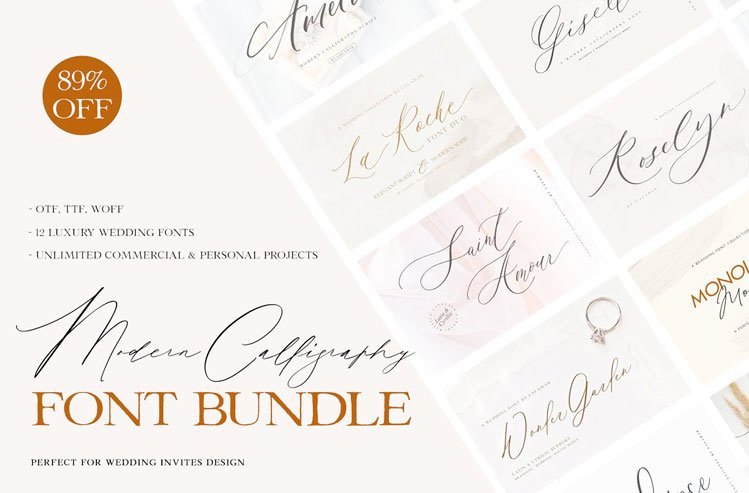
Modern Calligraphy Font
The Modern Calligraphy Font - It's perfect for wedding invitations, save the date cards, fine art papery, or personal gift cards...
Modern Calligraphy Font Bundle
Are you ready for a new bundle of absolutely gorgeous calligraphy scripts? Well, The Modern Calligraphy Font Bundle is READY!
It’s perfect for wedding invitations, save the date cards, fine art papery, feminine branding, or personal gift cards. This awesome bundle will save you 89% off the regular price.